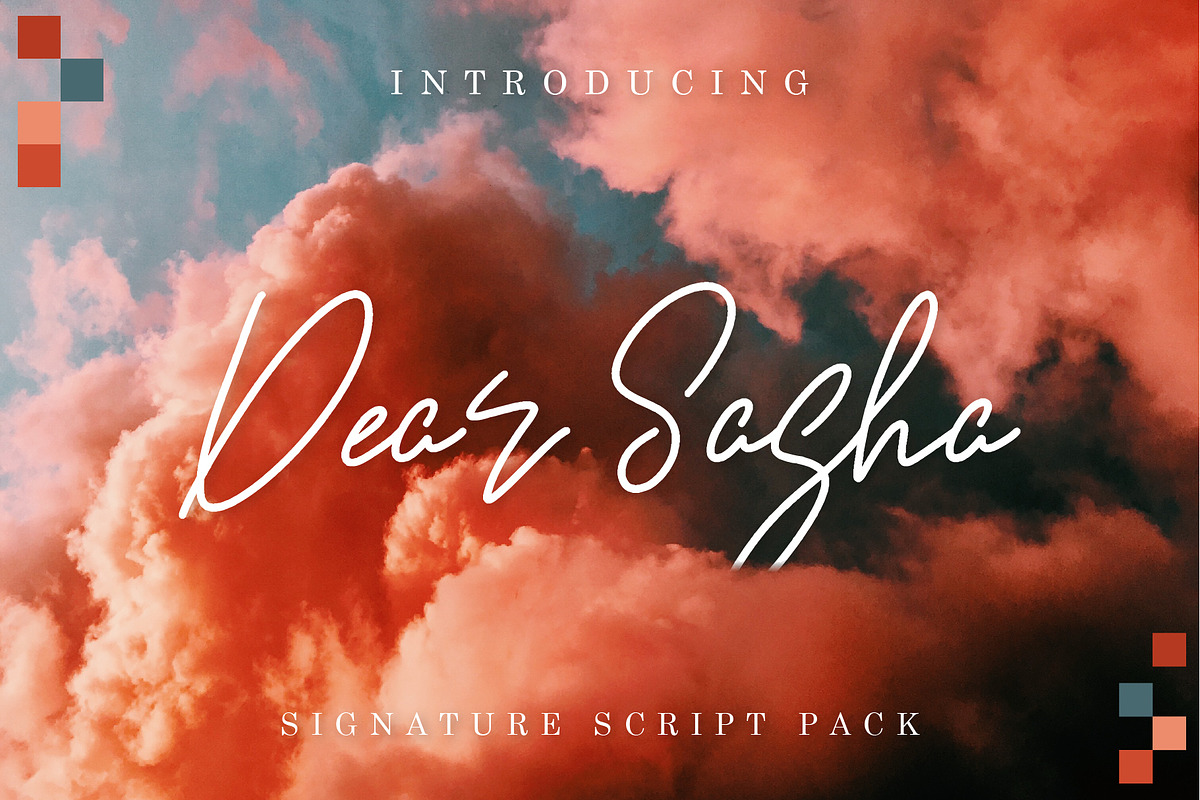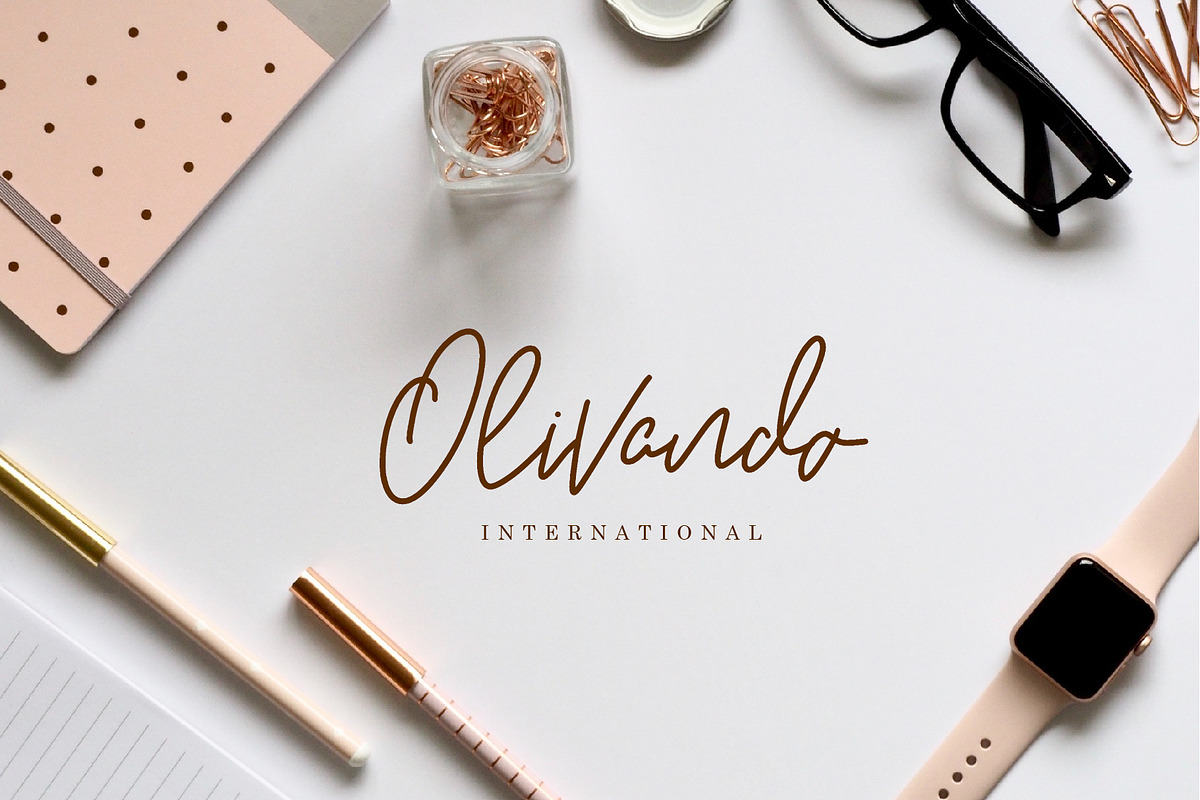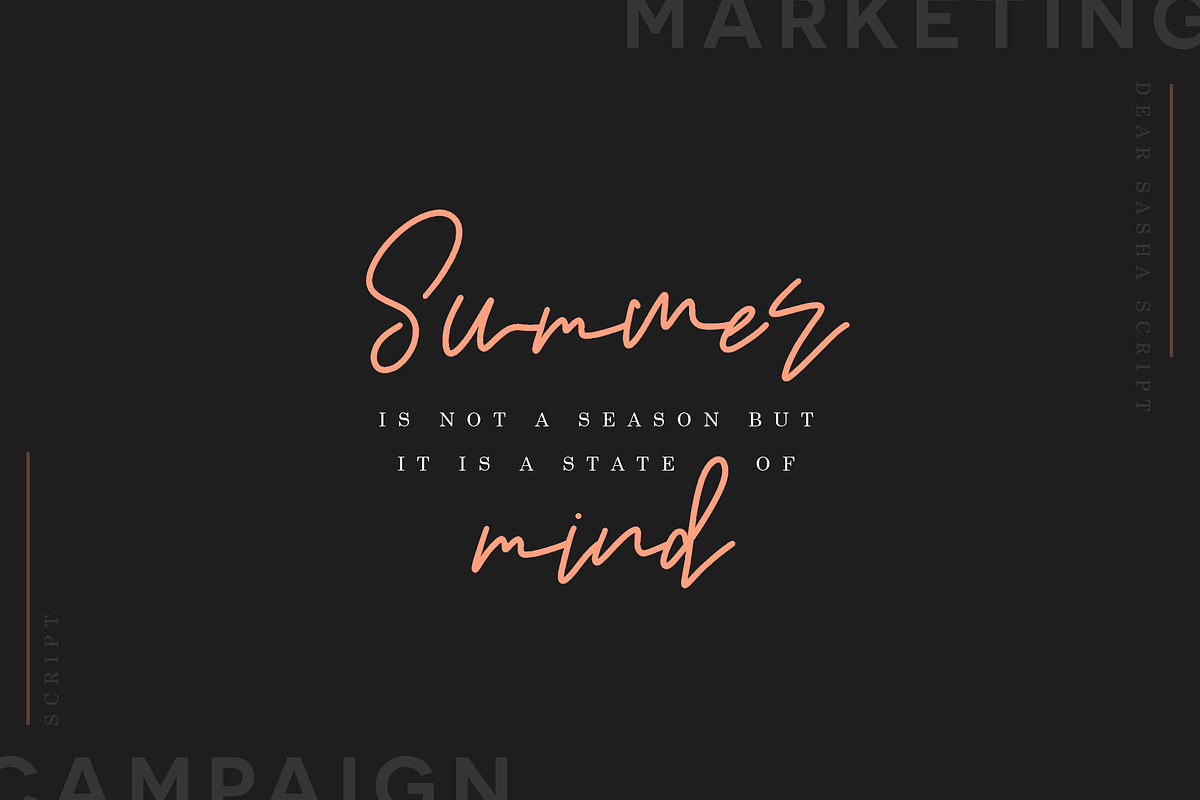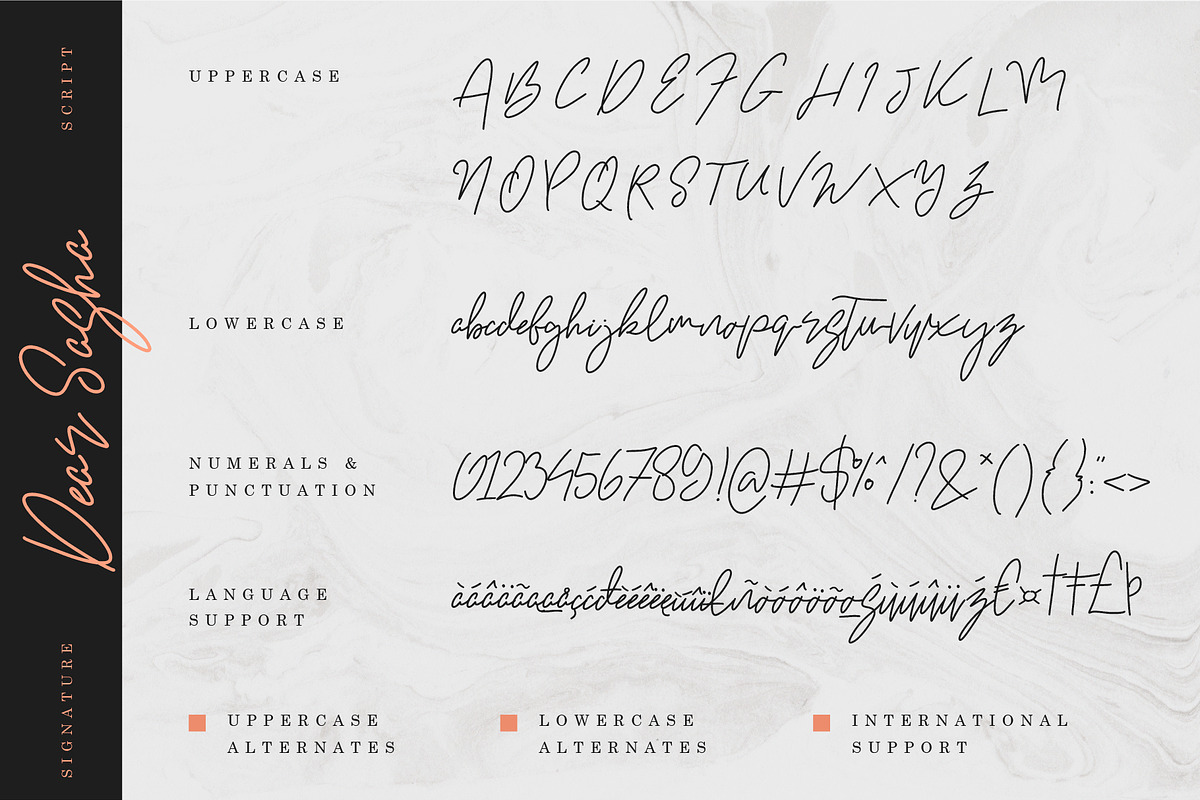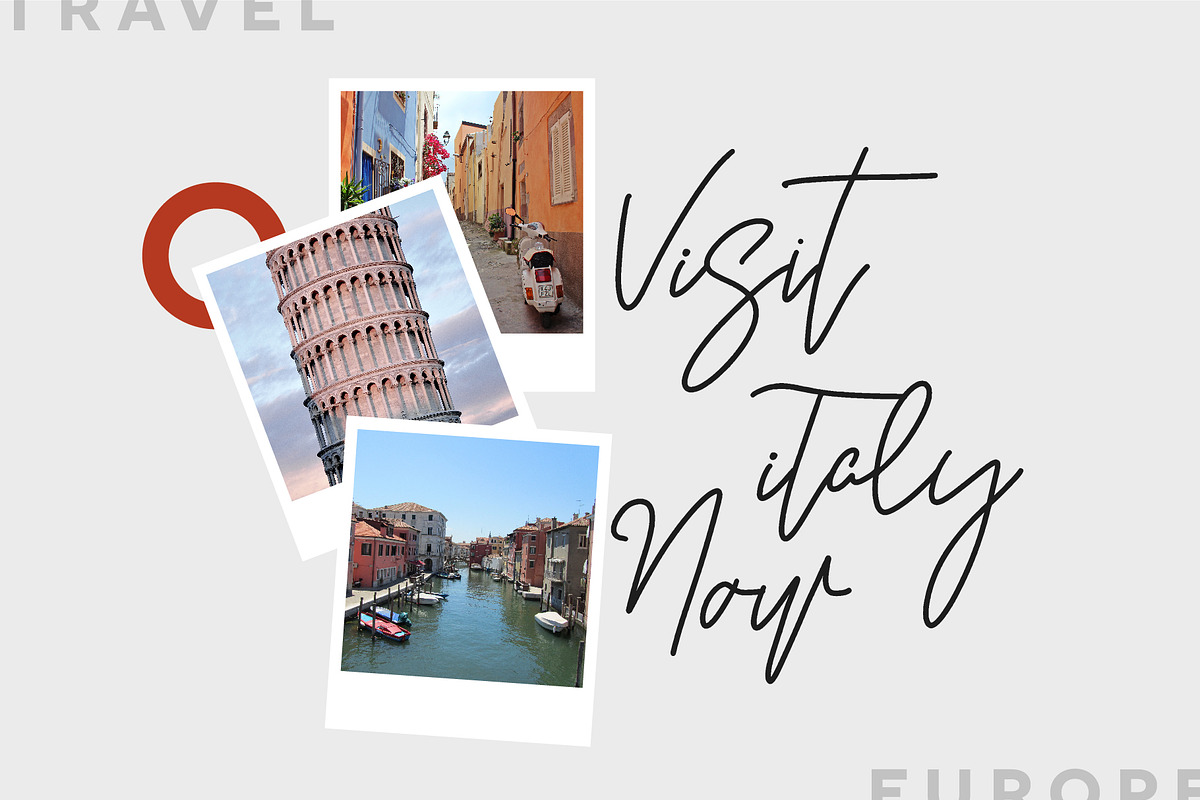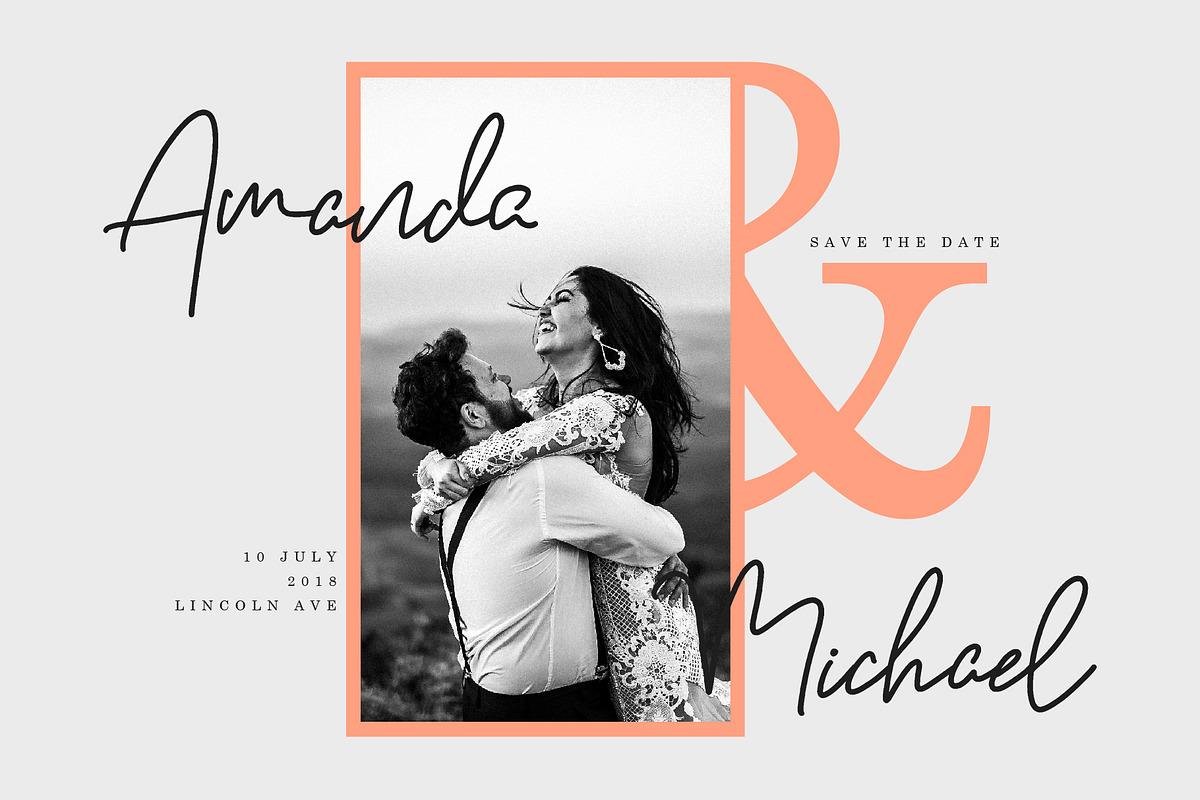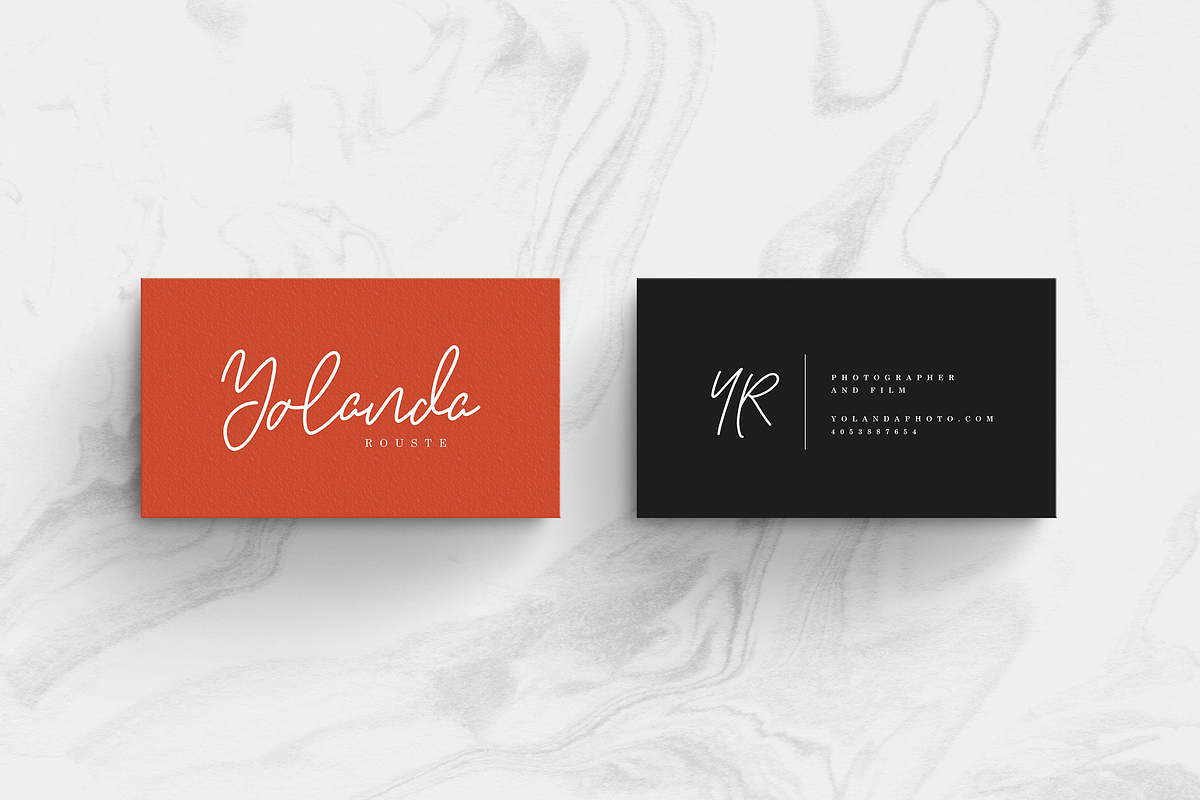
Dear Sasha - Signature Font
Dear Sasha is a monoline script full of rises and dips guaranteed to bring your designs to life! If you're after that "signature style" font, Dear Sasha delivers just that. Throw it on wedding invites, business logos, promotional materials, or prints and let this typeface do all the work for you.
Over 100 Bonus Glyphs including International Language Support (English, French, Spanish, German, Polish, Italian, Portuguese, Latin, & More)